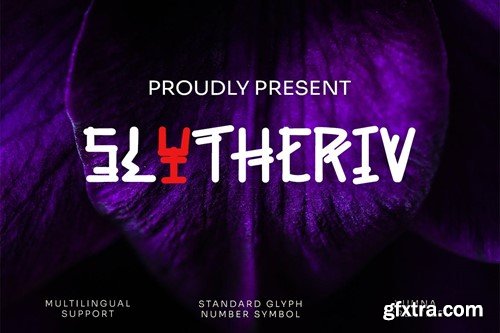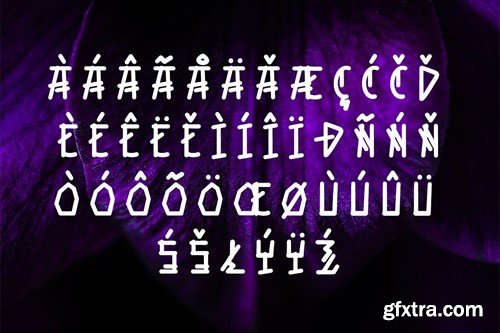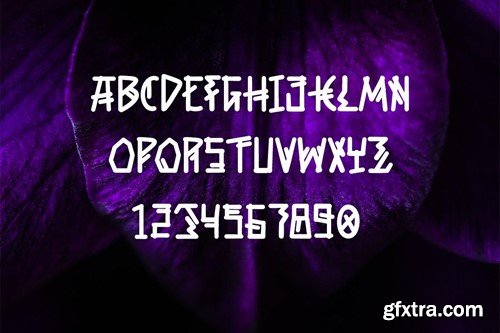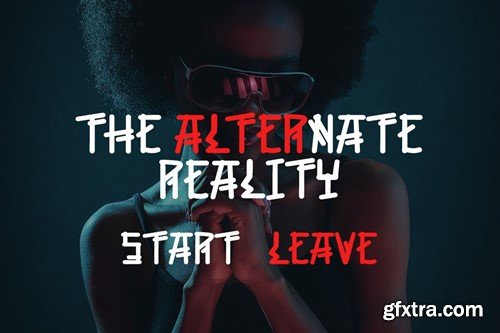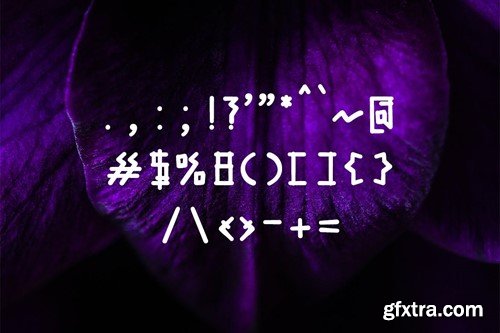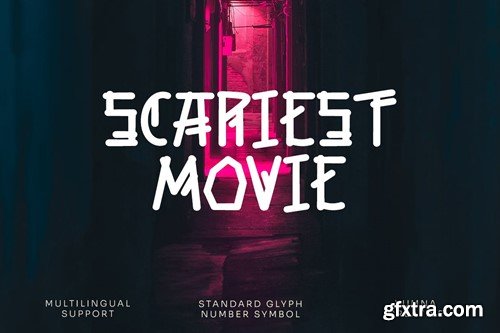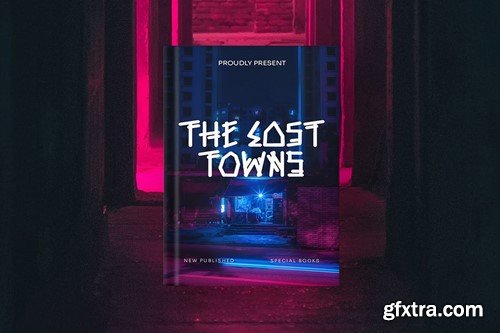
斯里特瑞夫 - 城市大胆字体 YDSZK3G
Slytheriv - Urban Bold Font
Introducing Slytheriv - Urban Bold Font This Font is a delicate, elegant and flowing handwritten font, so that a modern font is formed and ready to make a statement by adding elegant and unique flair to your next design project. Add it to your most creative ideas and notice how it makes them come alive! FEATURES FILES INCLUDED Got any questions? Drop me a line and I'll be happy to answer!
• Uppercase & Lowercase
• Numbering & Punctuation
• Alternate
• Multilingual Supports